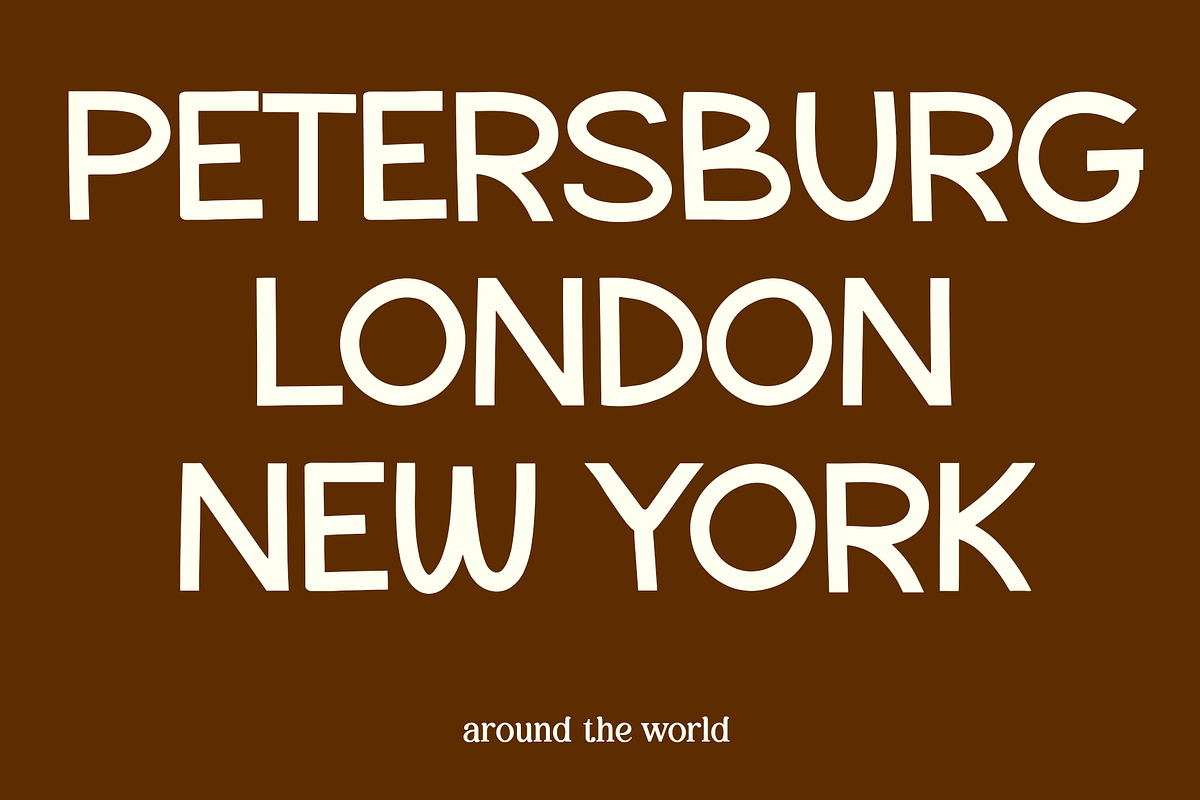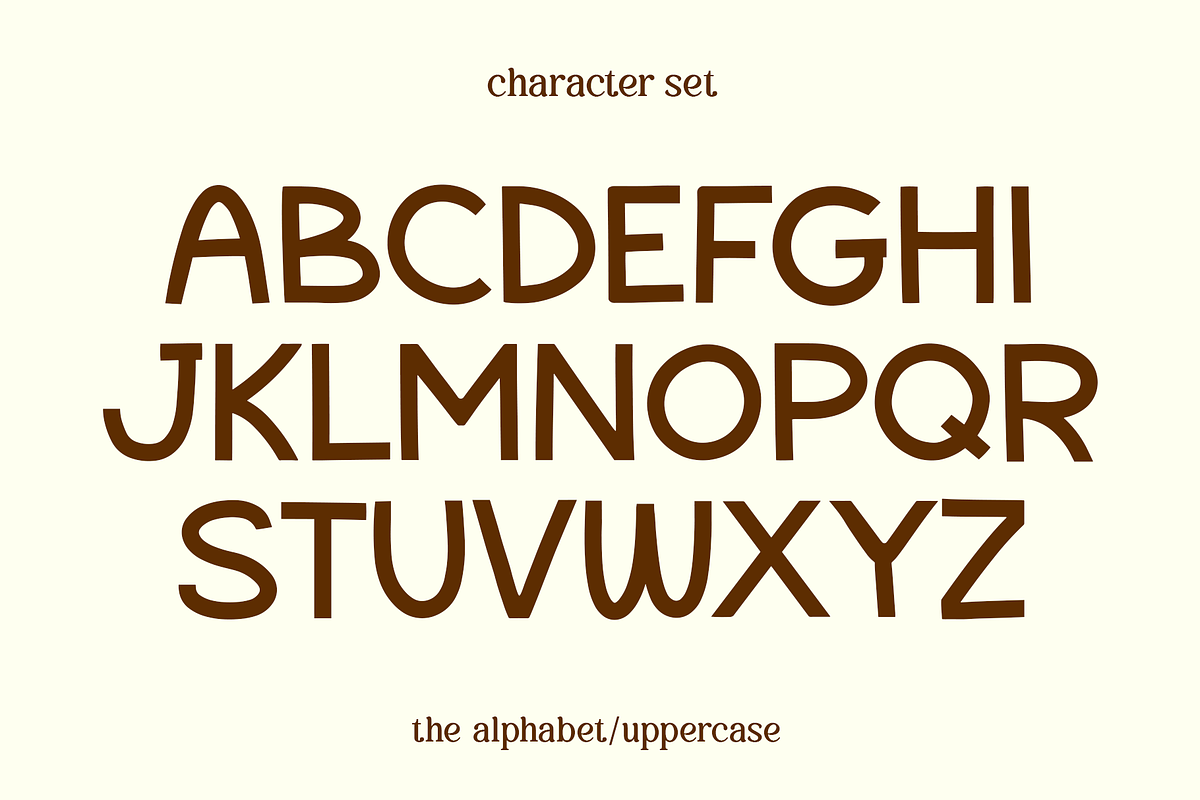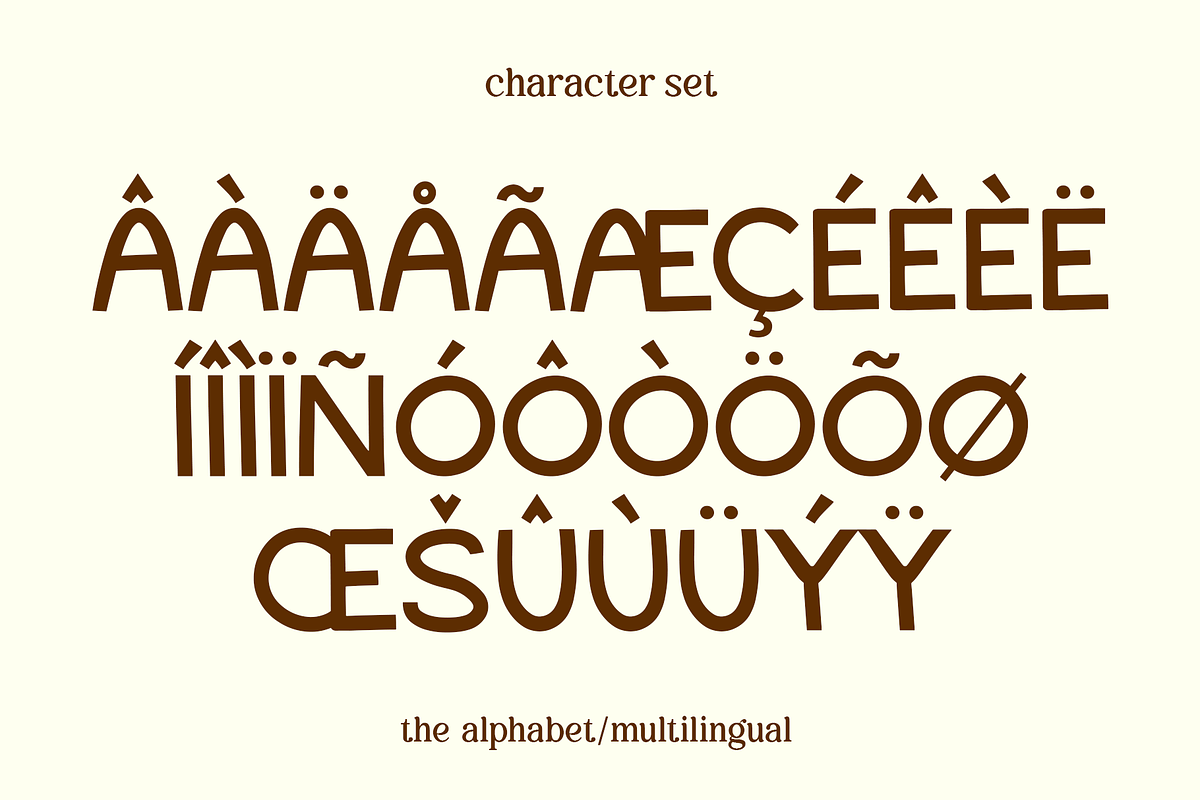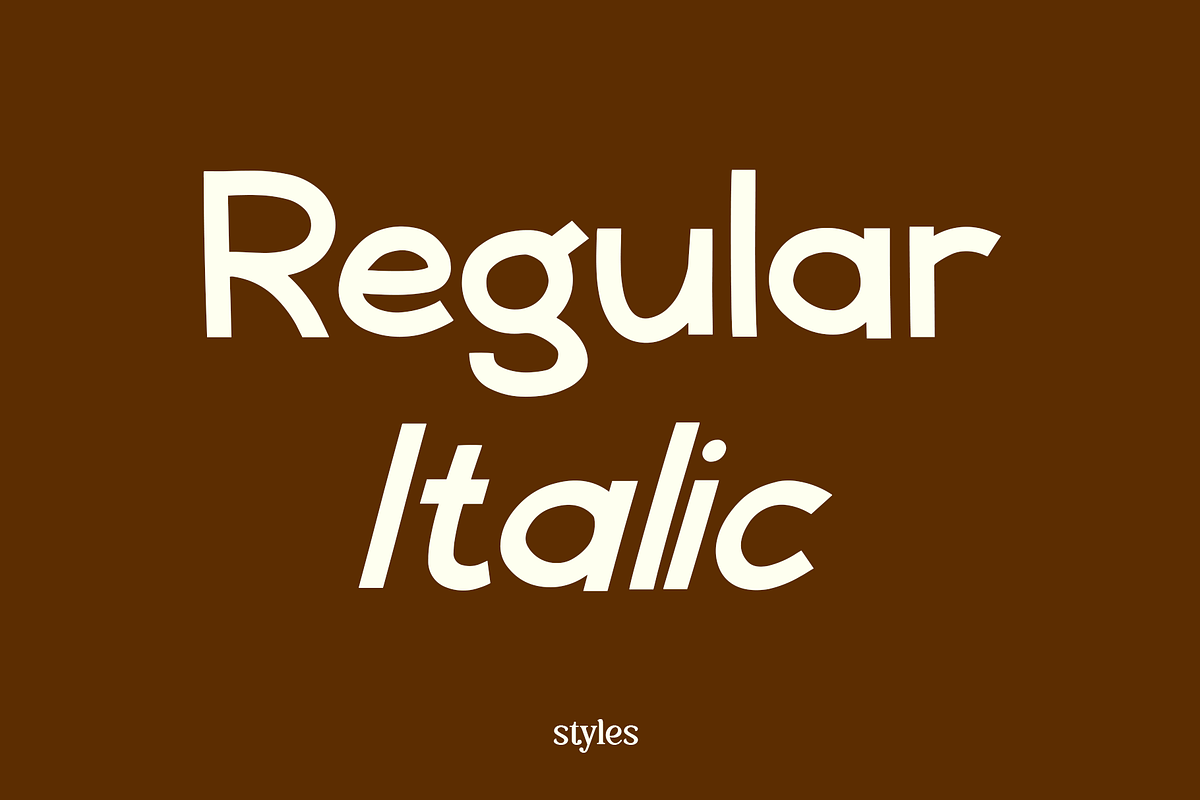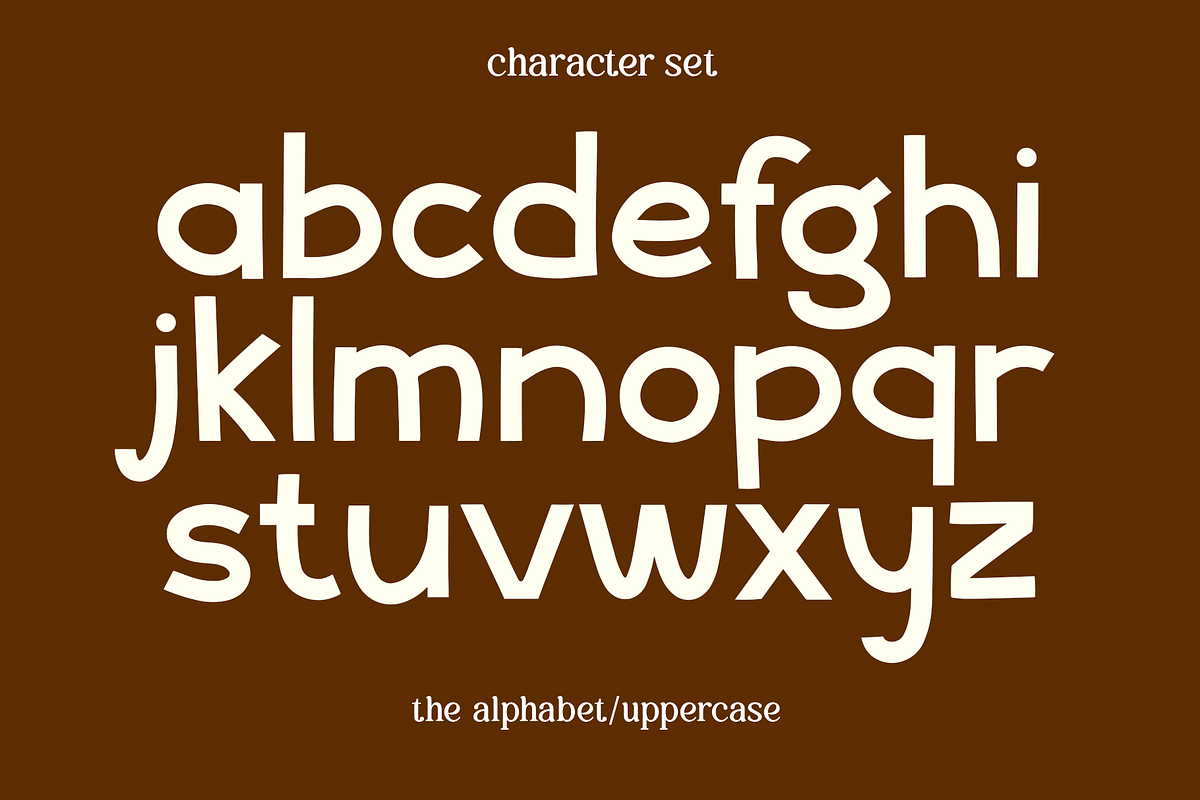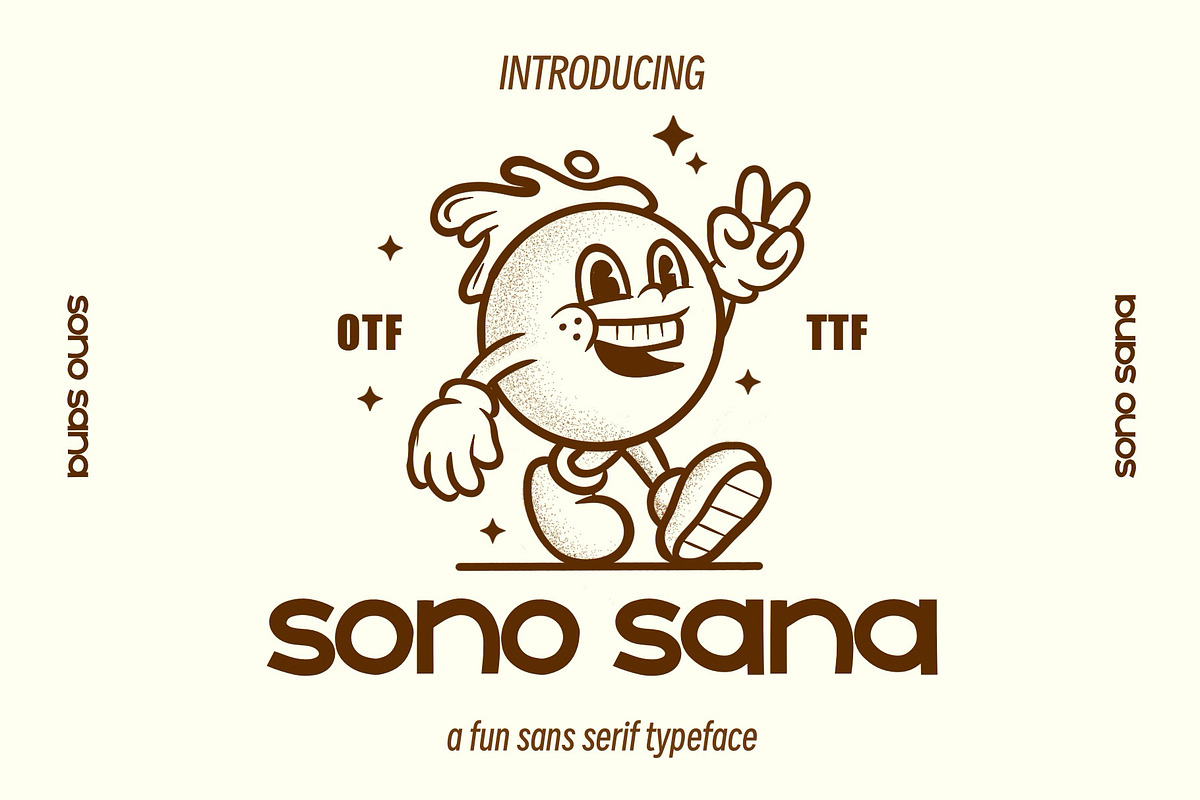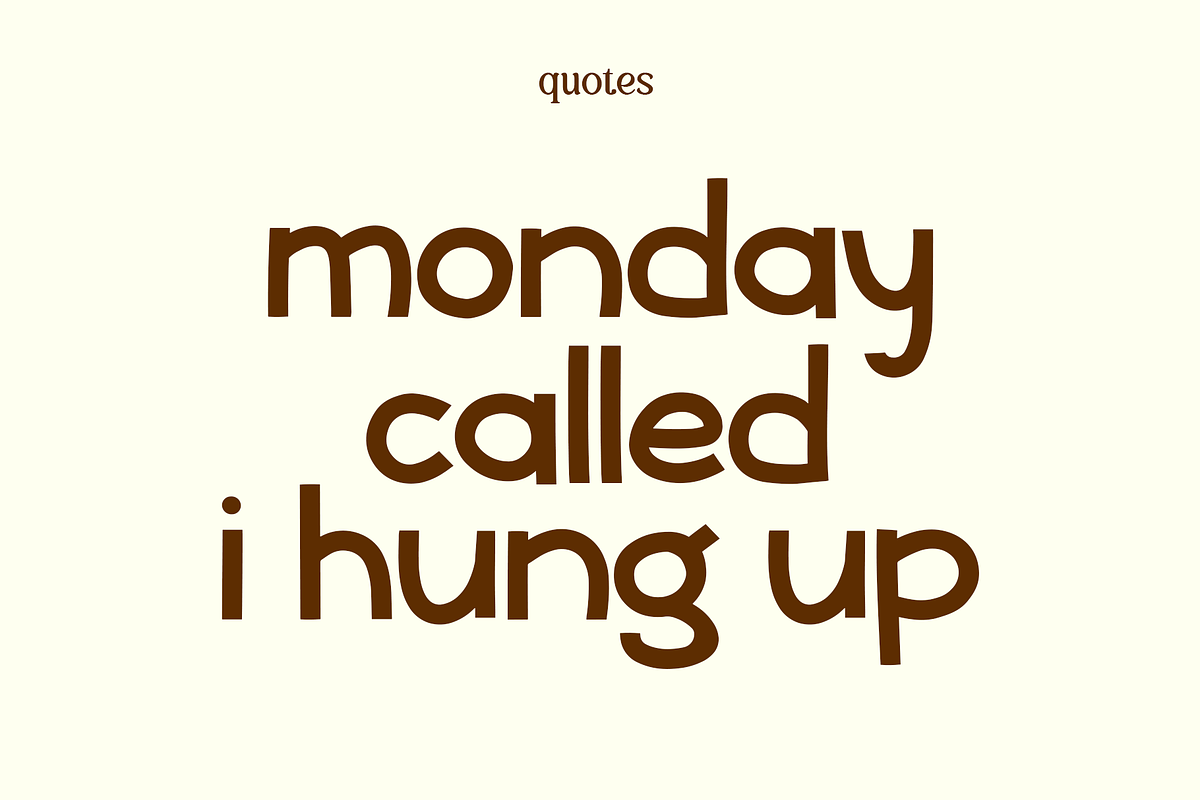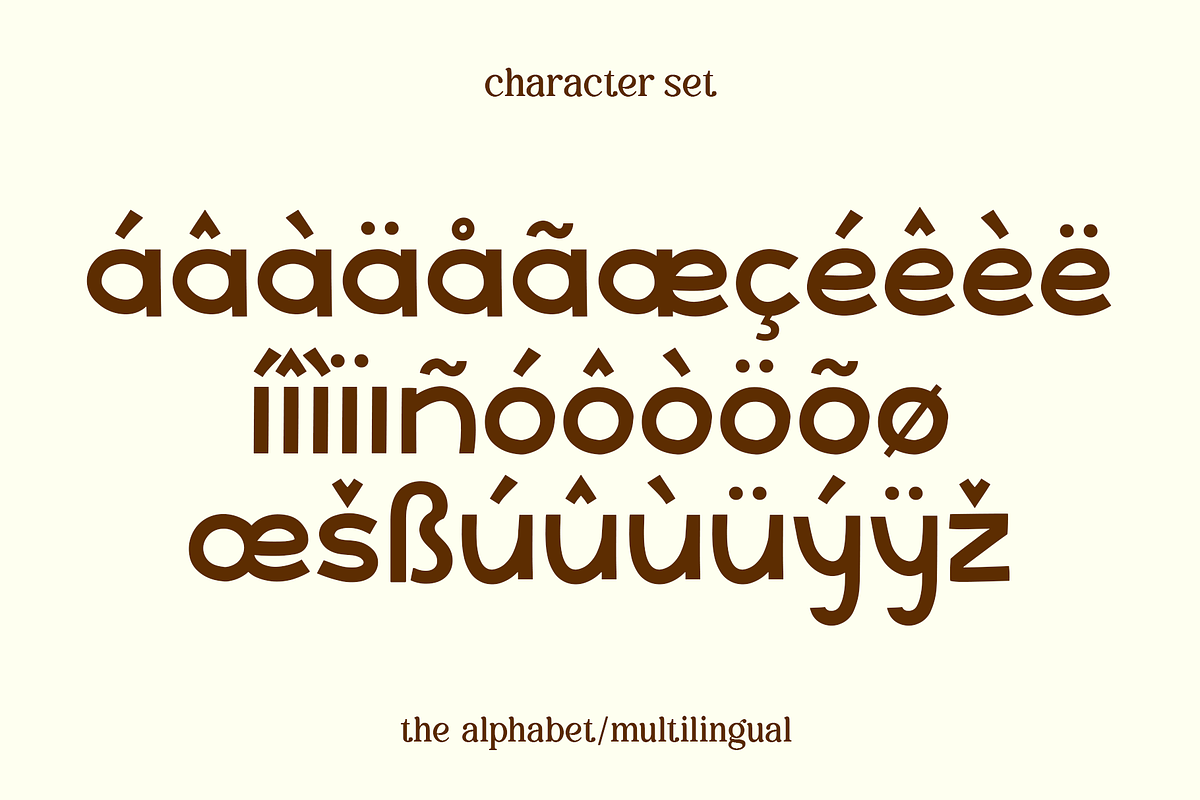
Sono Sana Font - Fun Sans Serif Font
Sono Sana is a delightful Sans Serif Fun font that effortlessly blends whimsy with modern design. This typeface available in SVG format, compatible with advanced tools such as Cricut and Glowforge, and for use in Procreate. The font exudes a playful charm, making it an ideal choice for projects seeking a lighthearted and approachable aesthetic. With clean lines and a sans serif structure, Sono Sana maintains a contemporary feel, while its unique characters and subtle quirks inject a sense of fun and personality. Whether used for headlines, branding, or creative projects, Sono Sana stands out as a versatile typeface that brings joy and creativity to any design.